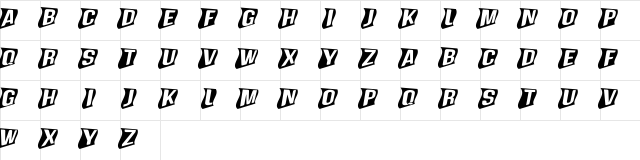
Genghis Khan framed Md Perspect Bold Free Font
Genghis Khan framed Md Perspect Bold
Designer: Mahir Huseynov
Design Context for Genghis Khan framed Md Perspect
Genghis Khan framed Md Perspect is a composed and adaptable typeface that performs quietly and consistently across a wide range of design contexts. Its bold stroke weight gives it real presence on the page.